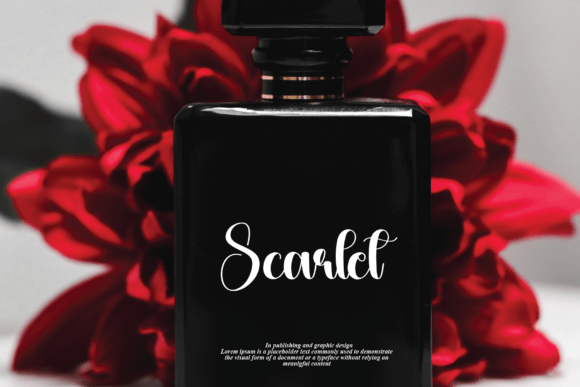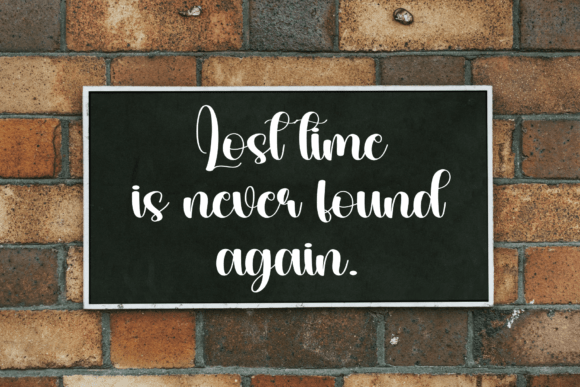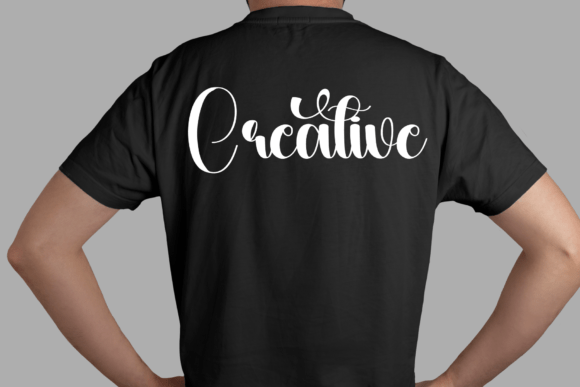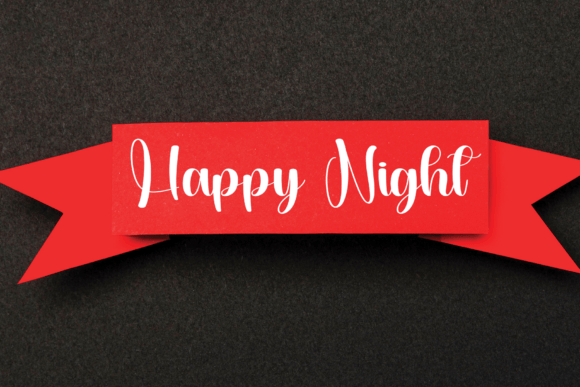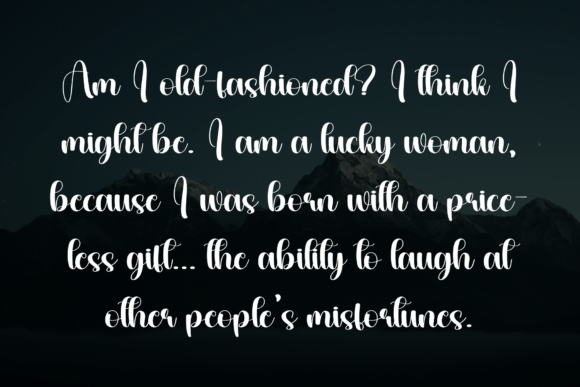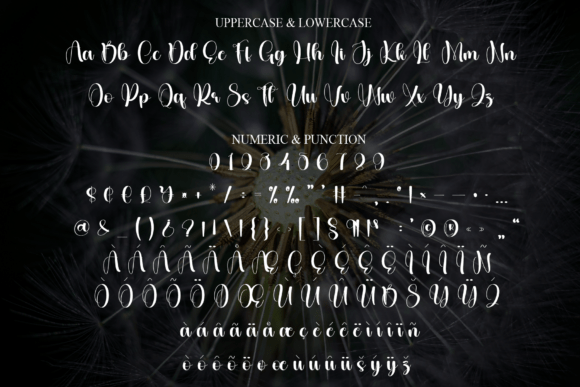
Introducing Black Dandelion Font: The Epitome of Elegance and Romance
In the realm of typography, few fonts capture the essence of romance and sophistication as beautifully as the Black Dandelion Font. This stunning script handwritten font is a masterpiece of design, boasting dramatic swashes and elegant curves that make it a perfect choice for a variety of creative projects. Whether you’re a designer looking for the ideal font for a wedding invitation, a crafty individual seeking to add a touch of elegance to your boutique branding, or simply a typography enthusiast, the Black Dandelion Font is sure to captivate.
The Characteristics of Black Dandelion Font
Black Dandelion is a romantic script handwritten font that exudes a sense of luxury and refinement. Its bold yet graceful style is characterized by:
- Dramatic Swashes: The font features beautiful, sweeping swashes that add a touch of drama and flair to any design.
- Elegant Curves: The elegant curves of the Black Dandelion Font give it a sophisticated, refined look that’s perfect for high-end branding and design projects.
- Handwritten Style: The font’s handwritten style gives it a personal, organic feel that’s perfect for creating unique and eye-catching designs.
- Bold yet Graceful: The Black Dandelion Font strikes the perfect balance between boldness and elegance, making it ideal for a wide range of design applications.
Uses for Black Dandelion Font
The versatility of the Black Dandelion Font makes it suitable for a variety of design projects, including:
- Wedding Invitations: The font’s romantic and elegant style makes it perfect for wedding invitations, save-the-date cards, and other wedding-related design projects.
- Logo Designs: The bold yet refined style of the Black Dandelion Font makes it an excellent choice for logo designs, particularly for high-end brands and businesses.
- Quotes and Typography: The font’s elegant curves and dramatic swashes make it ideal for showcasing quotes, phrases, and other typographic elements.
- Boutique Branding: The Black Dandelion Font is perfect for boutique branding, including packaging, labels, and other marketing materials.
Why Choose Black Dandelion Font?
With so many fonts available, why choose the Black Dandelion Font? Here are just a few reasons:
- Unique and Eye-Catching: The Black Dandelion Font is a unique and eye-catching choice that will help your design stand out from the crowd.
- High-Quality Design: The font is designed with high-quality craftsmanship in mind, ensuring that it looks great in any design application.
- Versatile: The Black Dandelion Font is versatile and can be used for a wide range of design projects, from wedding invitations to logo designs.
- Elegant and Refined: The font’s elegant and refined style makes it perfect for high-end branding and design projects.
Tips for Using Black Dandelion Font
To get the most out of the Black Dandelion Font, here are a few tips:
- Use it Sparingly: While the Black Dandelion Font is beautiful, it’s best used sparingly to avoid overwhelming the design.
- Pair it with Simple Fonts: Pair the Black Dandelion Font with simple, clean fonts to create a striking contrast.
- Experiment with Colors: The font looks great in a variety of colors, so don’t be afraid to experiment and find the perfect hue for your design.
- Pay Attention to Kerning: As with any font, pay attention to kerning to ensure that the text looks balanced and visually appealing.
In conclusion, the Black Dandelion Font is a stunning script handwritten font that’s perfect for designers and crafters looking to add a touch of elegance and romance to their designs. Its bold yet refined style, dramatic swashes, and elegant curves make it ideal for a variety of creative projects, from wedding invitations to logo designs. With its high-quality design, versatility, and eye-catching style, the Black Dandelion Font is sure to become a favorite in any designer’s toolkit.